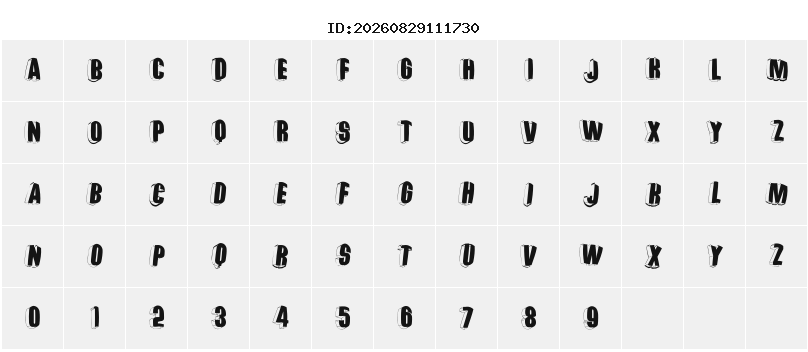
ThreeDimRightwardsRound Preview
• Font Name: ThreeDimRightwardsRound
• Full Font Name: ThreeDimRightwardsRound
About ThreeDimRightwardsRound.ttf
ThreeDimRightwardsRound.ttf is a modern, elegant sans-serif font designed for ultimate readability and visual harmony. Perfect for branding, headlines, web design, and print materials.